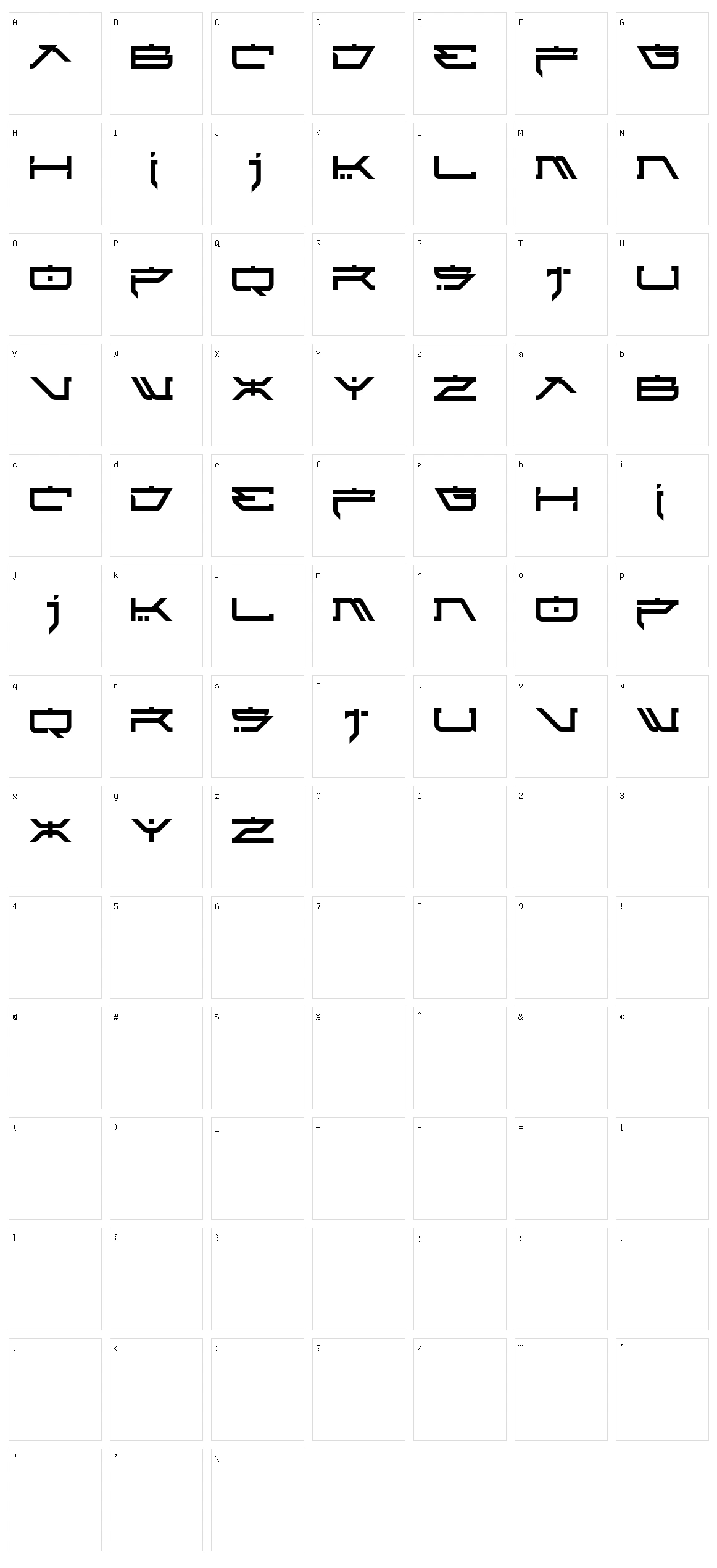
created by derik revenge - summer 1998
i created atari kids based upon hiroshima.
it doesnt have any punction that i remember, or numbers.
there is no kerning because i made the font for myself,
so i just fix myself.